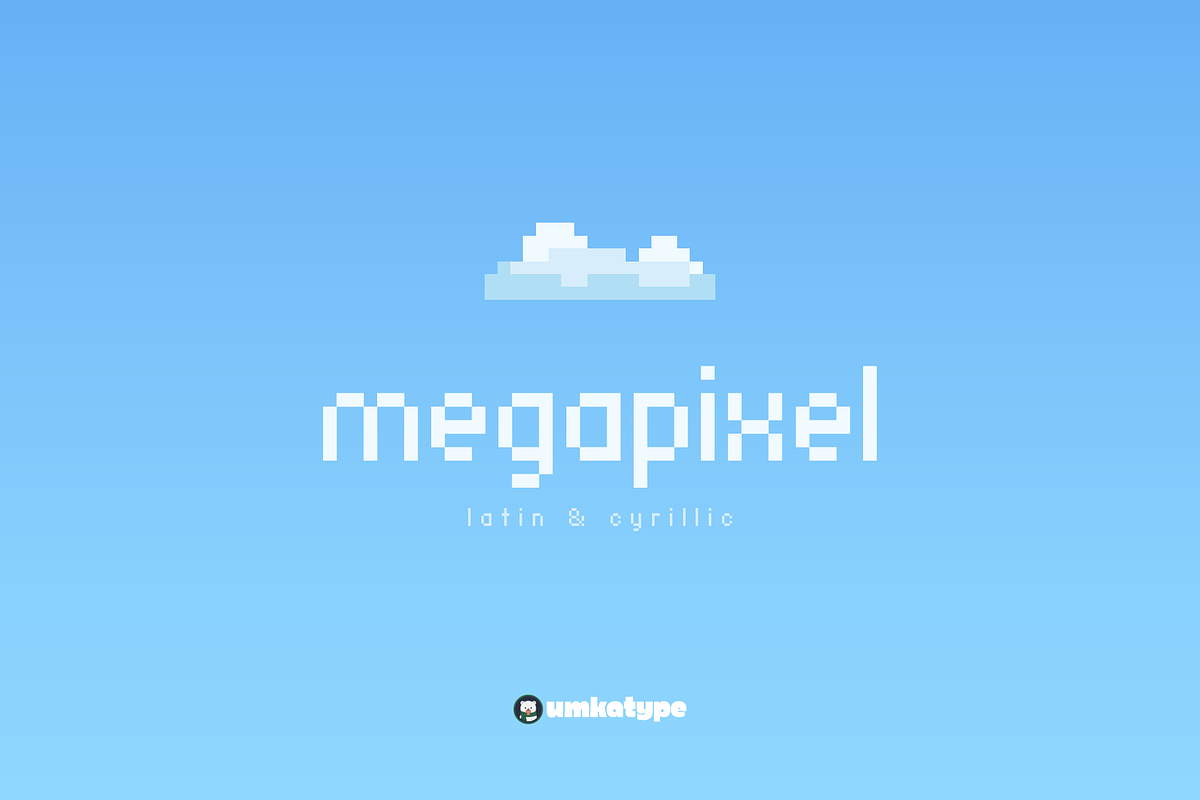
Megapixel Pixel Game Font Free Download is a retro-inspired, pixelated typeface designed specifically for gaming and digital projects. Perfect for video game logos, retro game interfaces, app design, and digital marketing, this font brings a nostalgic, 8-bit feel to your creative work.
With its sharp, blocky pixels and digital charm, Megapixel Pixel Game Font Free Download captures the essence of old-school video games and digital design. Whether you're creating a game title, developing an app, or designing a pixelated logo, this font adds authenticity and a vintage touch. Test it out in your next project to see how it enhances your design—then upgrade to a commercial license when you're ready to share it with the world.